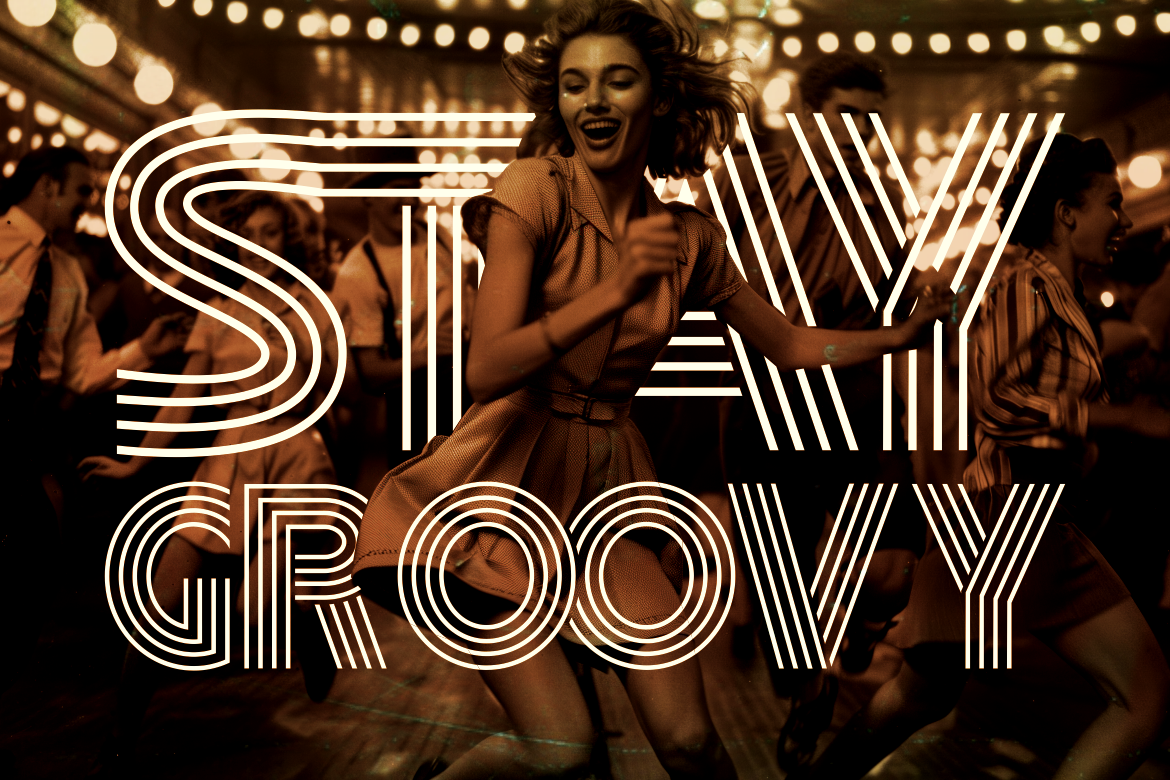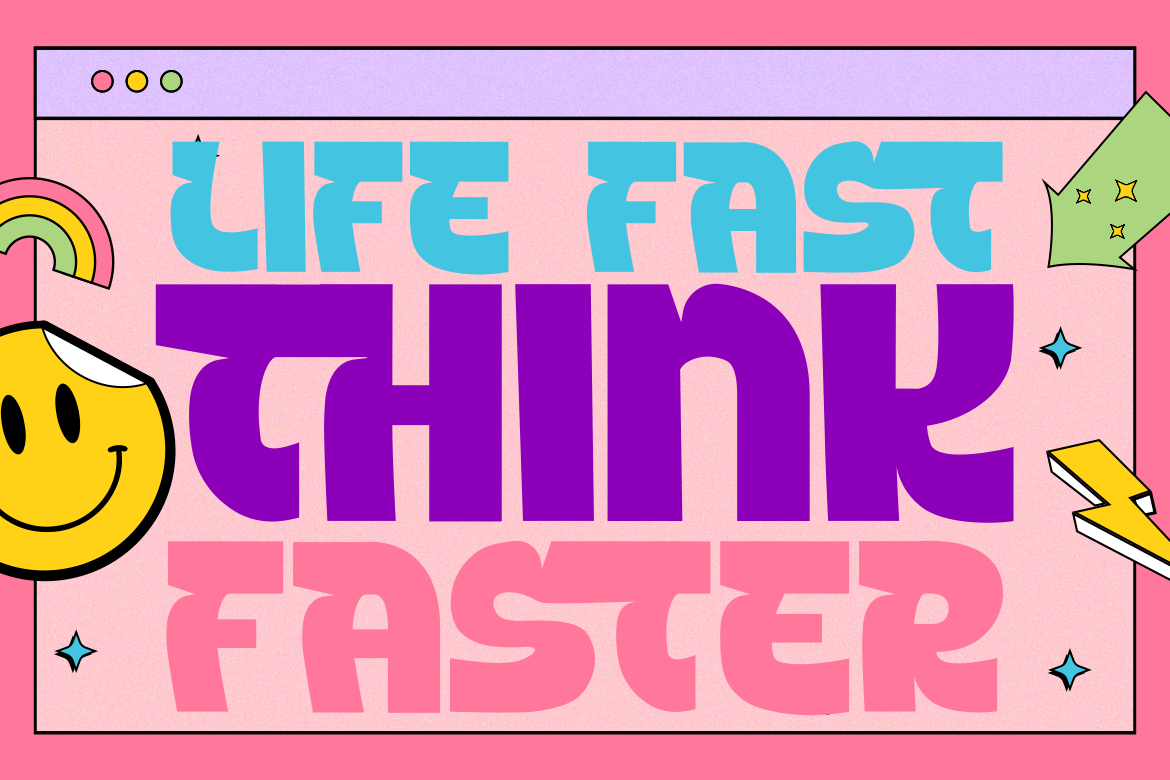
The Best Modern Fonts for Trend-Forward and Professional Logo Design
Typography plays an enormous role in shaping how a brand is perceived. From tech startups to boutique fashion labels, businesses today want logos that feel contemporary, clean, and instantly recognizable. That’s why modern font choices continue to dominate logo design. They offer the right balance of elegance, clarity, and visual strength, qualities that help brands stand out both online and offline.
This article explores why modern fonts for logos are so effective, how they contribute to brand identity, and which modern typefaces from Putracetol.com can elevate your design work. Whether you’re a designer, business owner, or creative professional, understanding how to choose the right font gives you a strong foundation for building a memorable visual identity.
Why Modern Fonts Matter for Logos
Modern fonts whether geometric, neo-retro, minimalist, or contemporary serif, bring a fresh and adaptable look to any brand. They’re rooted in simplicity but carry enough personality to feel distinctive.
Here are the key reasons they excel in logo design:
Professional Impression
Modern fonts create a clean and organized appearance. Their balanced proportions and simple structures help logos look established, confident, and intentional. Professionally designed typography signals quality, which helps brands build trust right from the first glance.
Improved Readability
One of the strongest benefits of modern typography is clarity. The strokes are usually well-defined, the spacing is thoughtful, and the shapes are easy on the eyes. This makes your logo readable at small sizes, which is especially important for mobile apps, product tags, social media icons, or favicon versions of your branding.
Flexibility Across Media
A modern logo font works seamlessly across print and digital platforms. Whether your logo is embossed on packaging, displayed as a website header, or used in a billboard layout, modern typography keeps the design consistent.
Alignment With Trends
Modern fonts reflect current visual preferences, clean lines, minimalist interiors, bold shapes, and expressive curves. When your logo aligns with these trends, the brand looks relevant and up-to-date. This is essential for startups, creative businesses, and fashion brands that rely heavily on visual appeal.
Examples of Modern Fonts from Putracetol.com
Putracetol.com offers a wide range of modern, stylish fonts that work beautifully for logo design. Each typeface brings its own character and tone, allowing designers to match the right font to the right brand personality.
Below are some standout options:
Luxerna
Luxerna blends elegance with strength. Its bold appearance and polished structure make it ideal for premium, upscale brands. It works especially well for luxury fashion, beauty labels, and high-end products that require a commanding, stylish presence.
Moltar
Moltar mixes retro curves with modern proportions. It’s a great choice for brands that want a nostalgic touch without looking outdated. The personality of Mibundi helps logos feel warm, creative, and memorable.
Popdash
Popdash has a nostalgic feel but with refined, modern execution. Its unique balance of old and new makes it ideal for lifestyle brands, creative agencies, and logos that need a touch of character without losing professionalism.
Retro Rush
Retro Rush reflects a stylish retro-modern aesthetic that still feels fresh today. Its smooth shapes and subtle vintage tone work well for brands involved in fashion, editorial content, handmade goods, or artistic industries.
Tectron Modern
Tectron Modern stands out with a distinctive and bold appearance. It’s ideal for creative and expressive brands that want a logo with strong visual impact. Tectron Modern delivers personality without sacrificing readability.
Mellowish
With tall characters and a playful structure, Mellowish adds energy and movement to a logo. Its shape makes it great for dynamic brands, especially those in entertainment, lifestyle, or youth-oriented markets.
Compacture
Compacture has a strong visual identity with solid strokes and confident proportions. It’s perfect for modern tech brands, digital agencies, or any business looking for a bold, contemporary look.